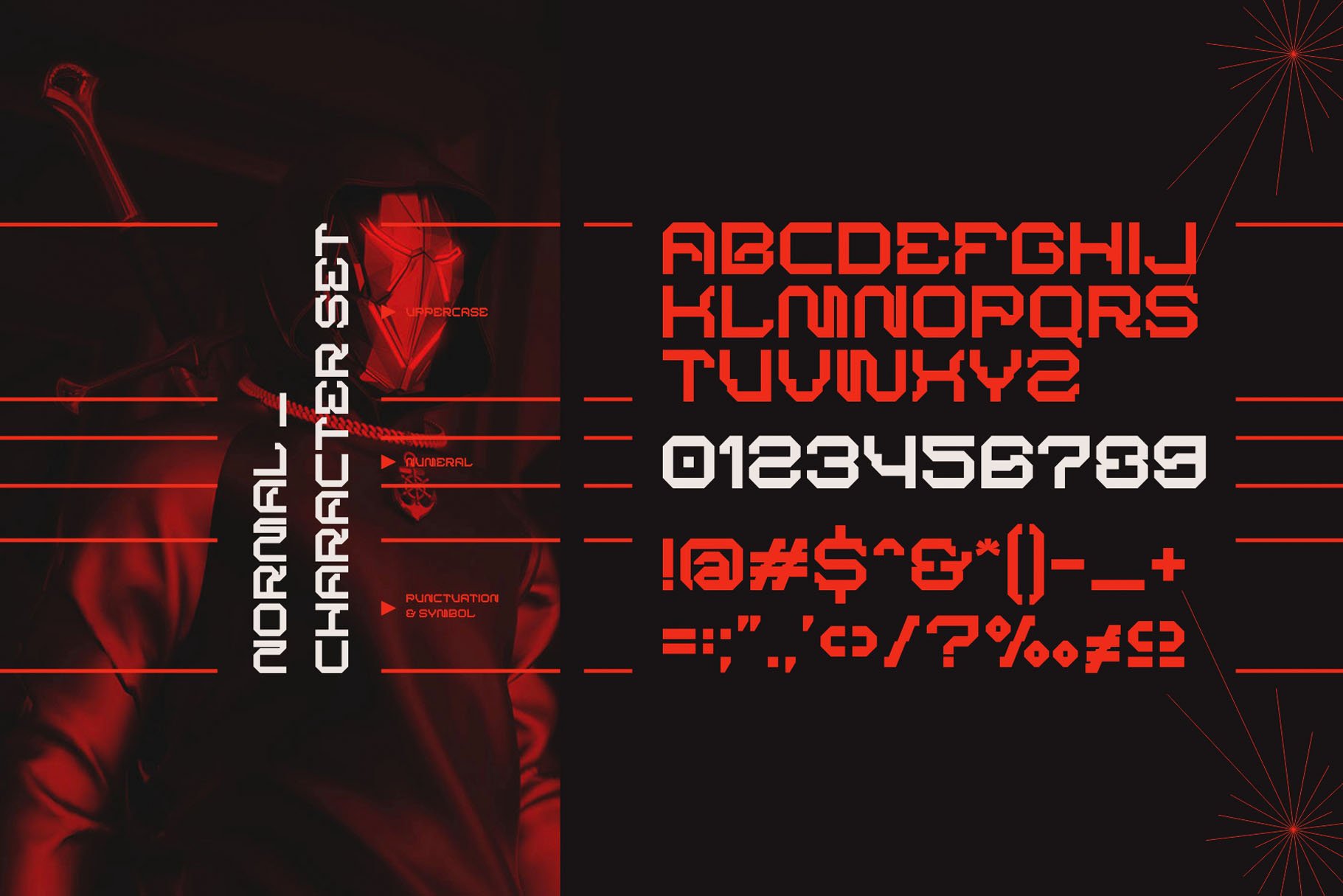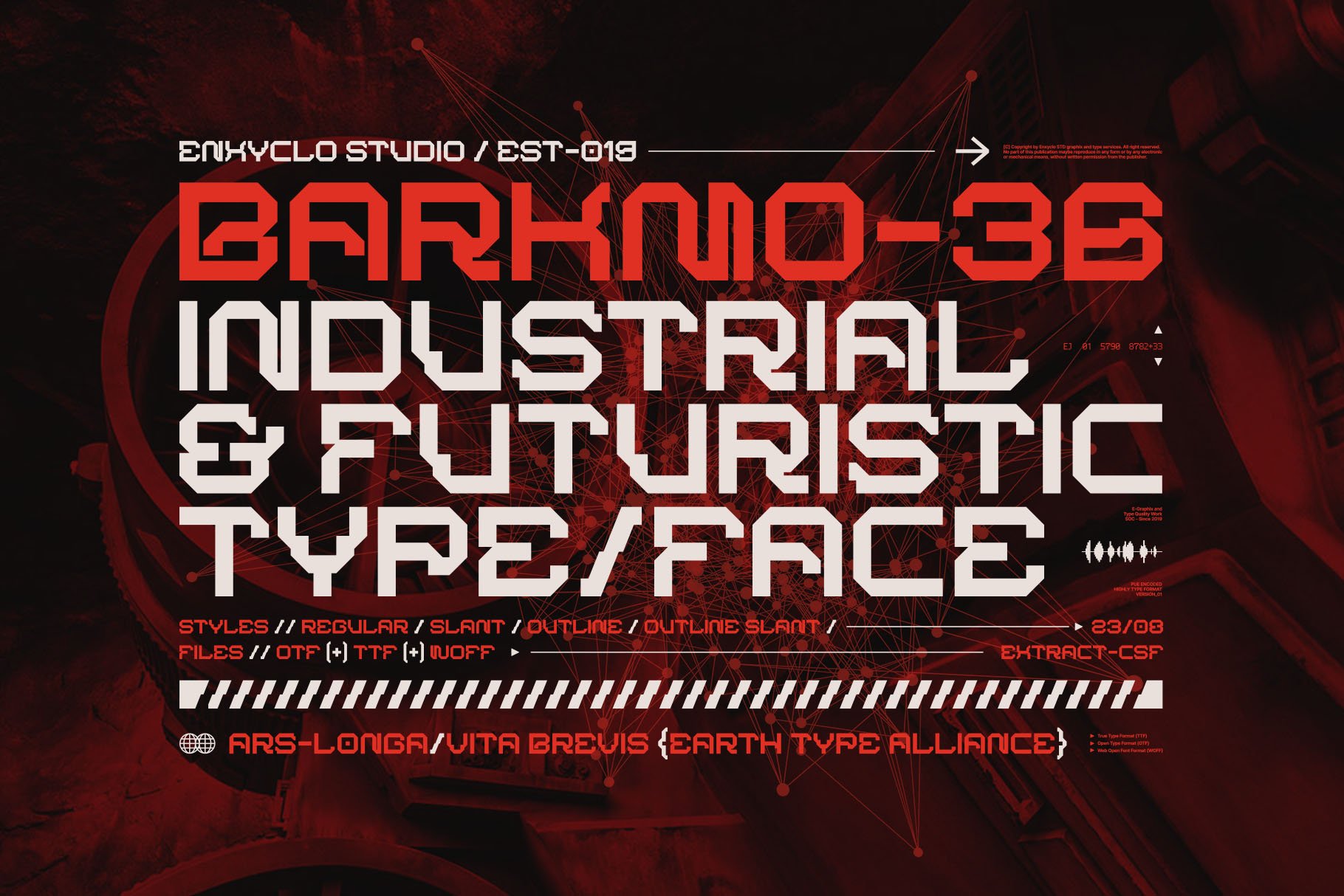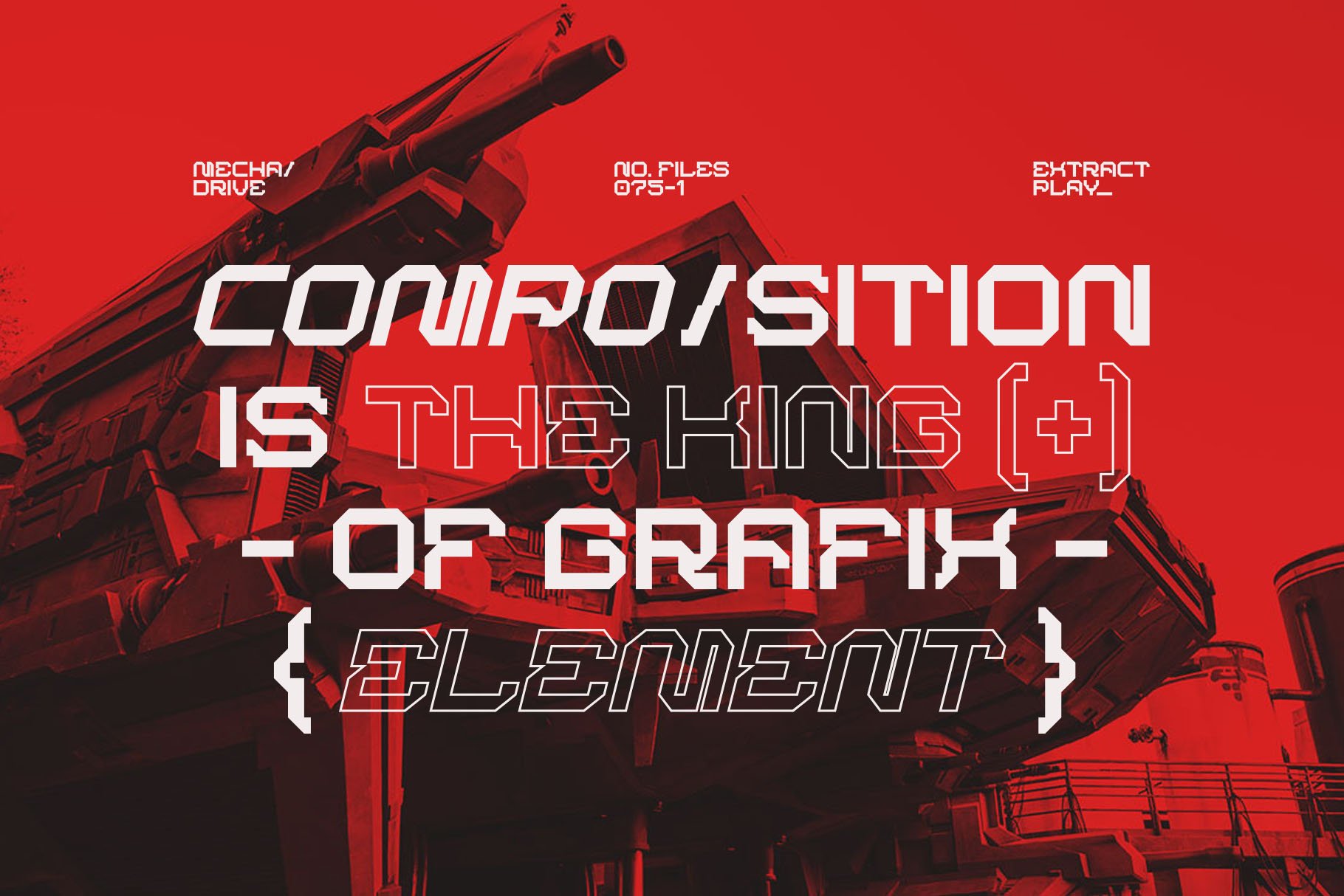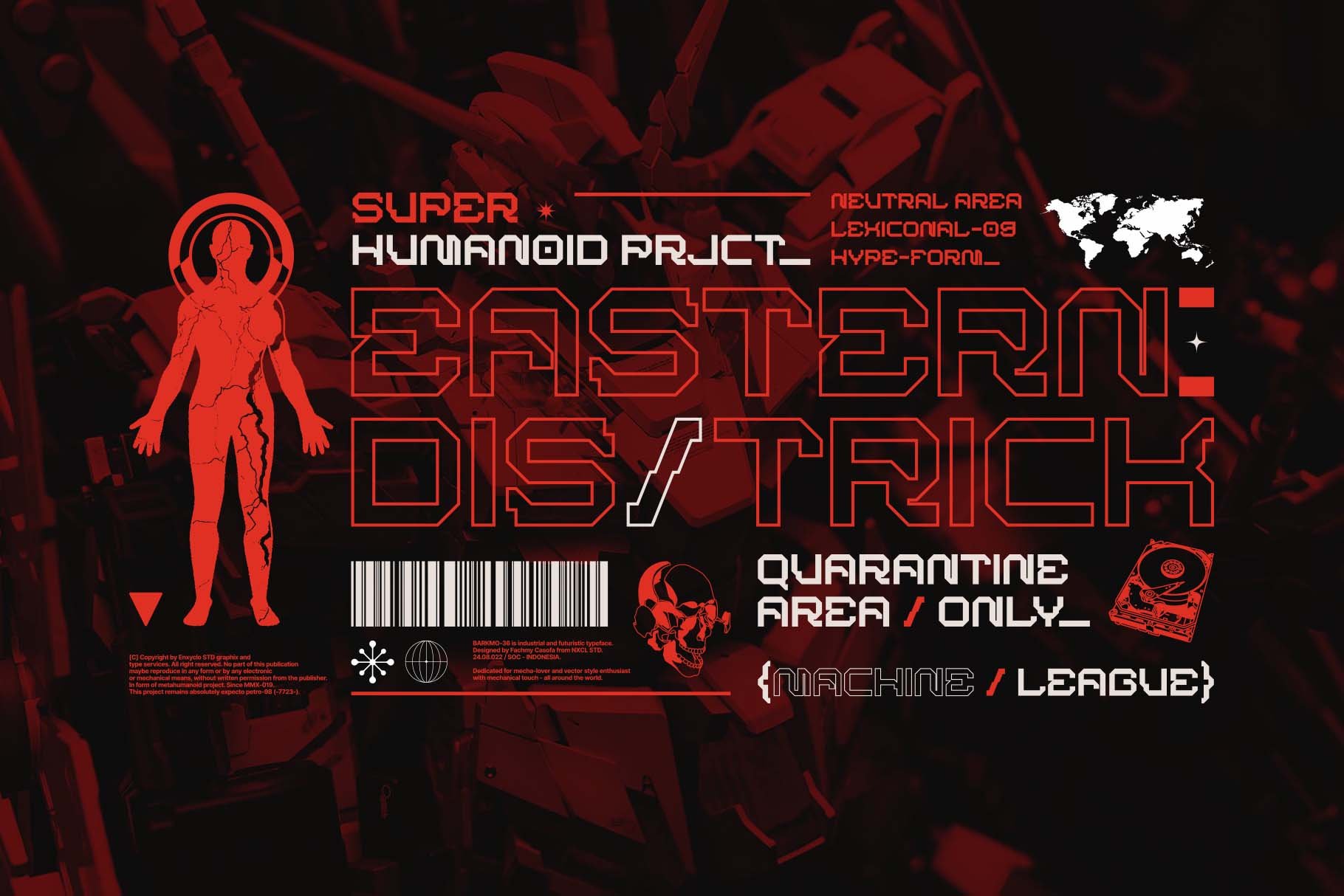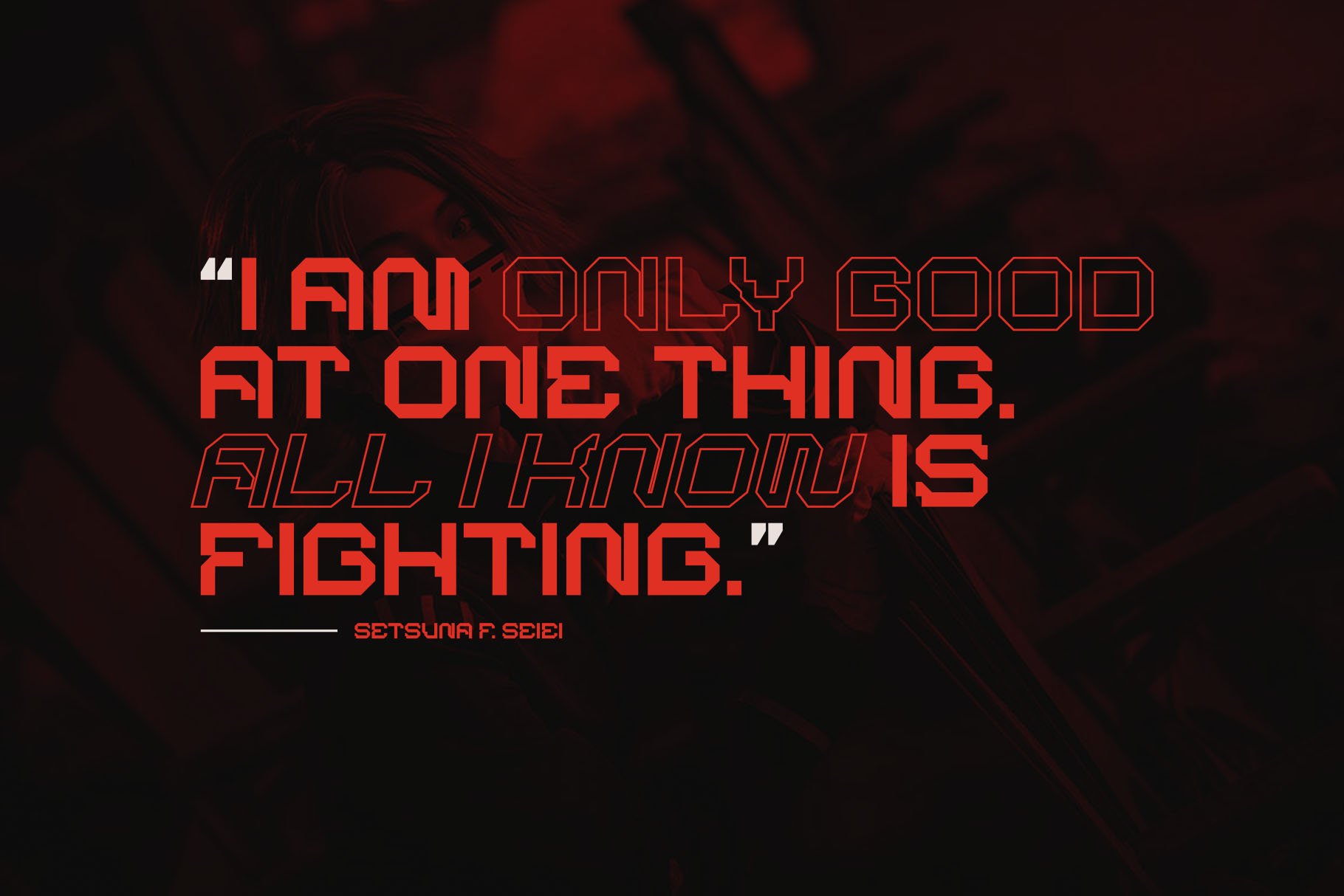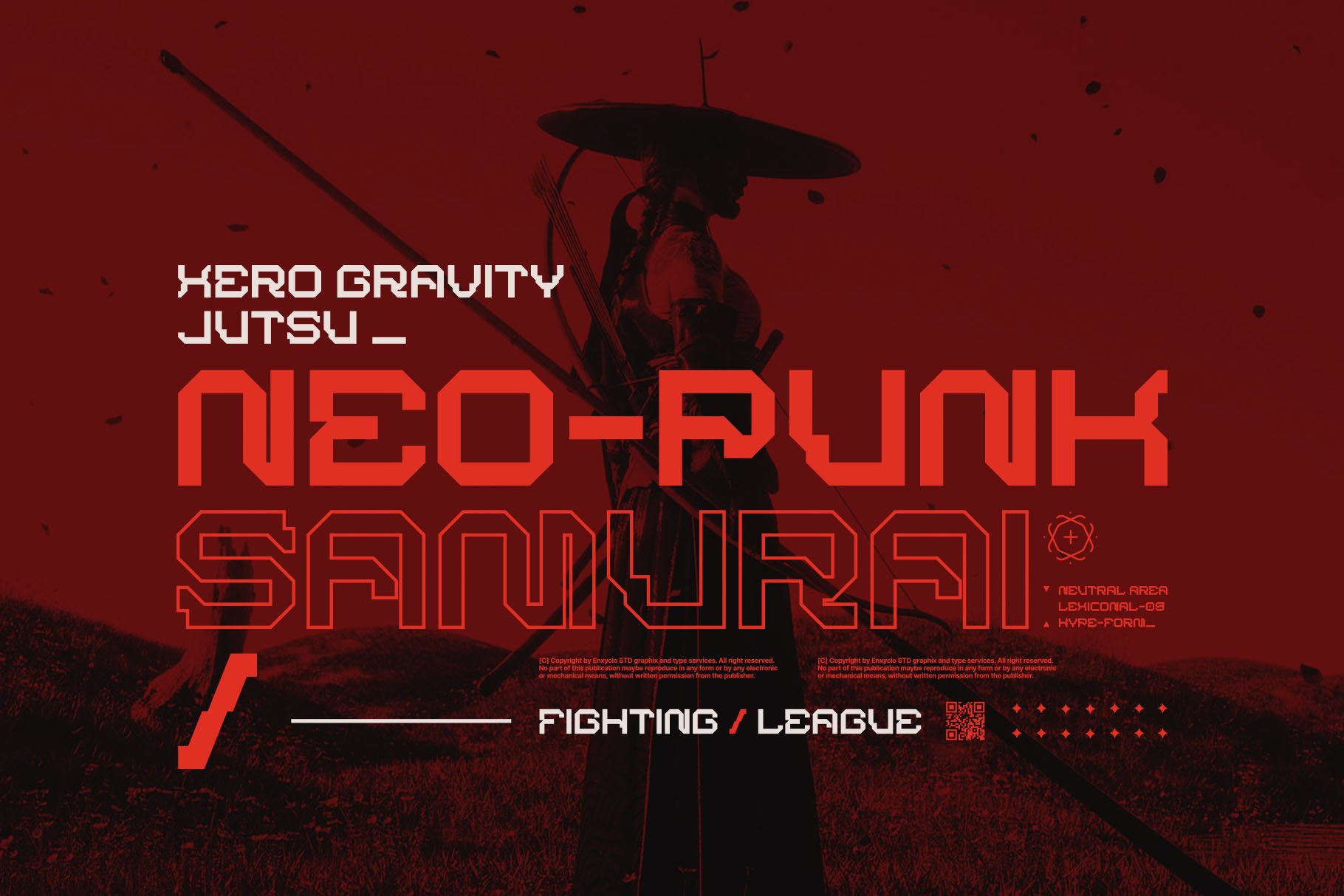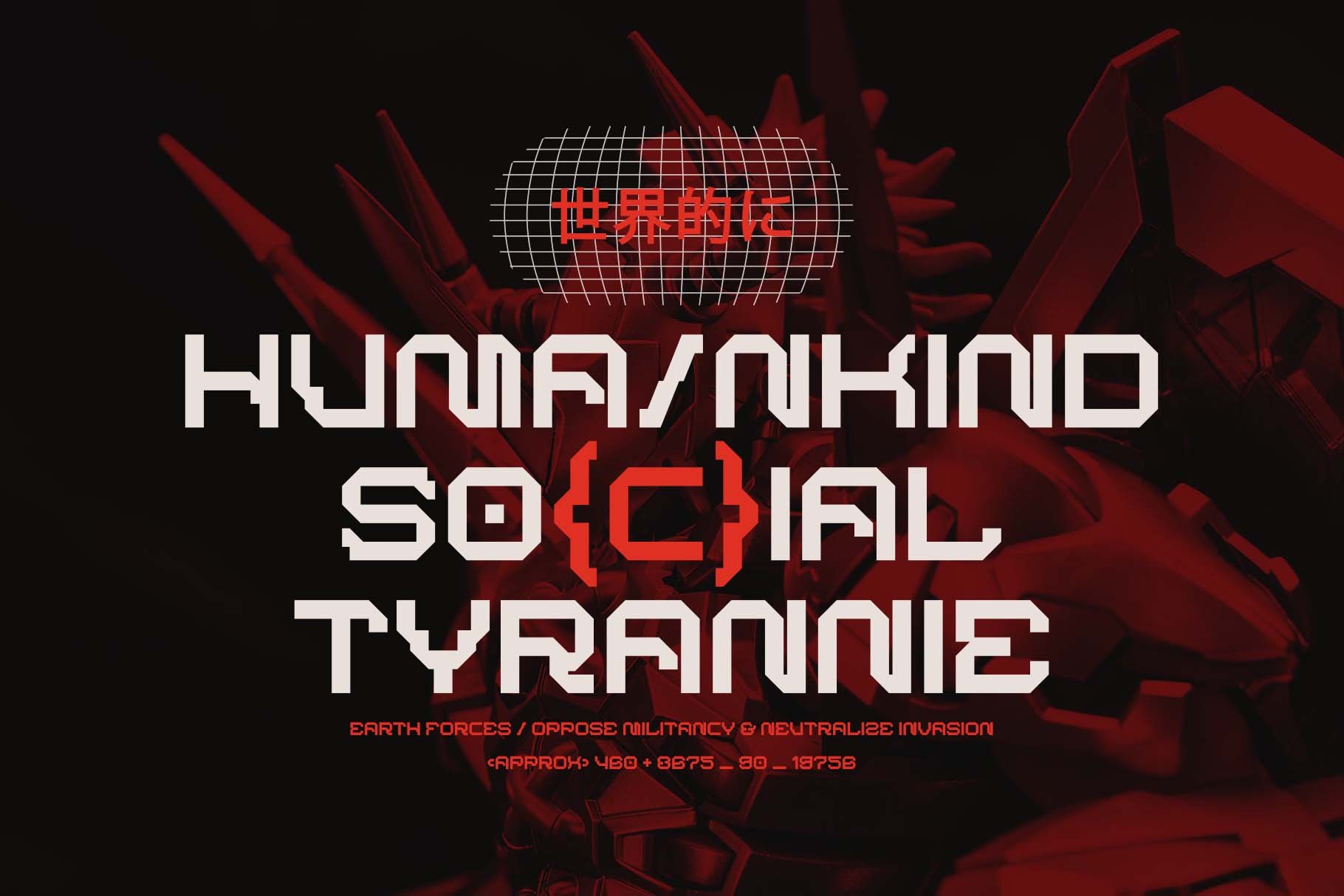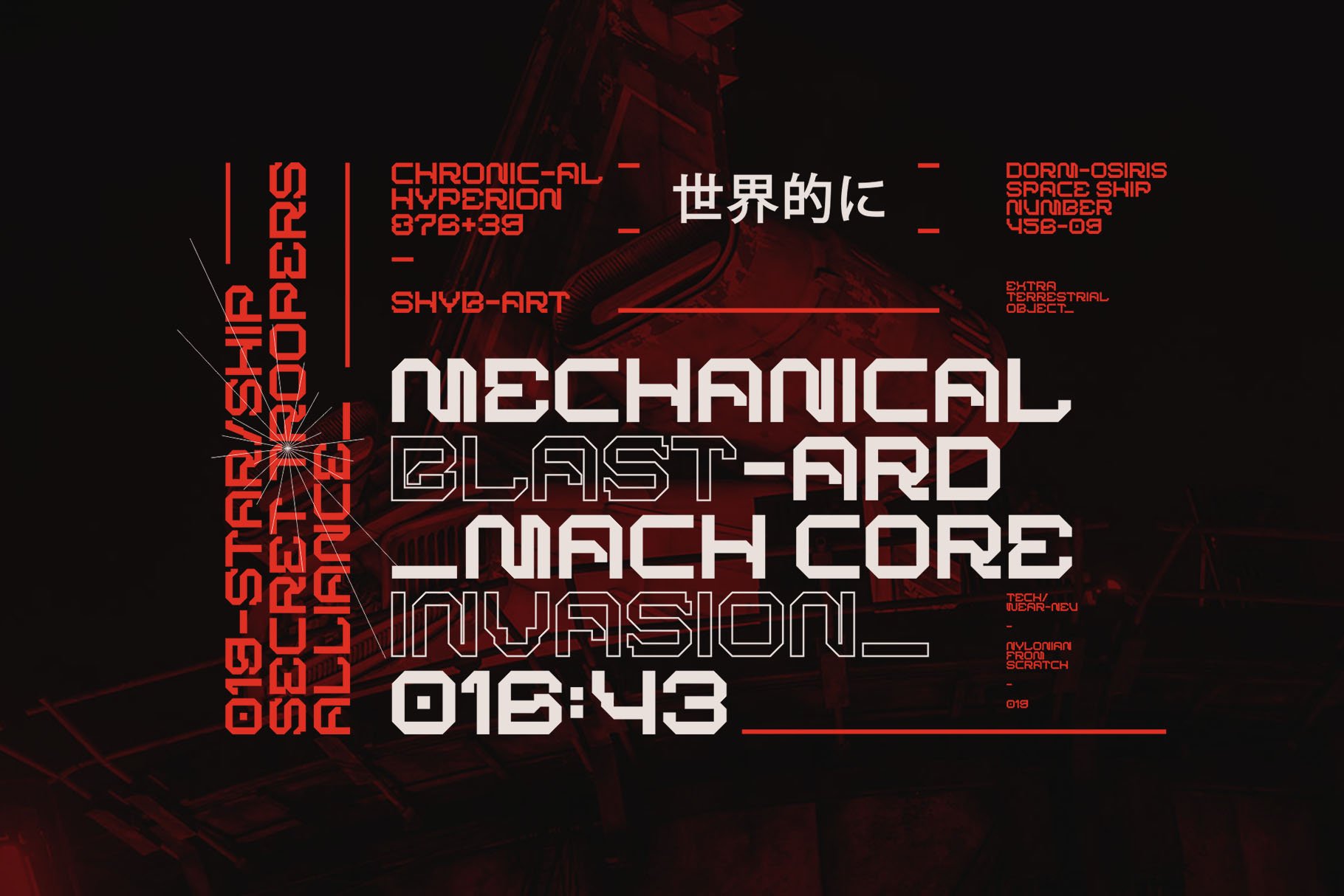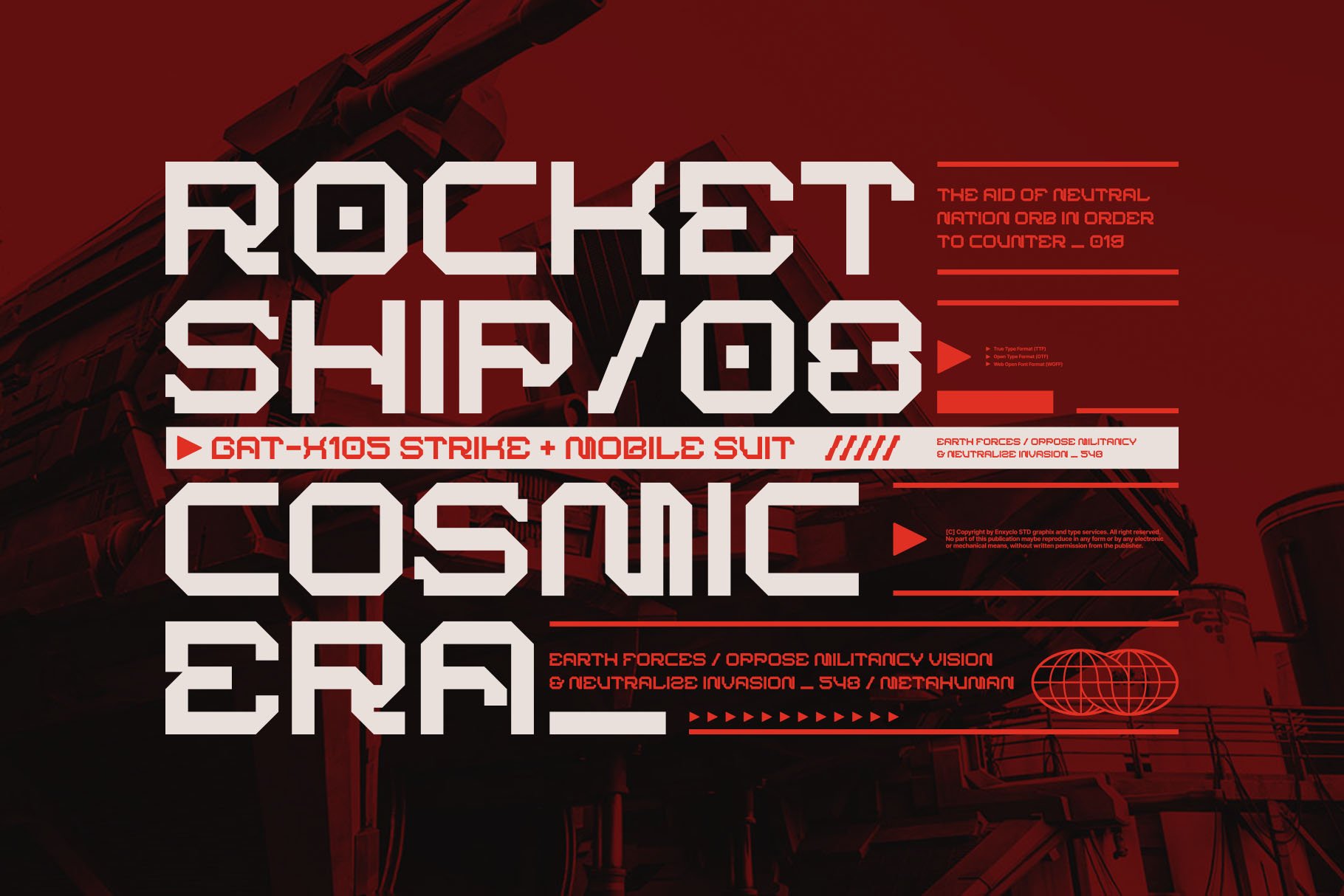
BARKMO-36 is industrial and futuristic typeface. Highly inspired by industrial and mecha-robotic vibes. The design of typeface will make your project more powerful and inspiring. It is perfect for headline, billboard, magazines, website, titles, poster, branding, thumbnail, t-shirt design, street wear design, and creative logos, or any project that needs futuristic and industrial touch. With this beautiful futuristic and industrial typeface, absolutely you can make your project stand out from the rest. See the previews above to get some inspiration on how to use them.
FEATURES
• 4 Styles: Regular, Slant, Outline, & Outline Slant
• Contains 235 Glyphs for Each Style (Total: 940 Glyphs)
• Uppercase, Numeral, Punctuation & Symbol